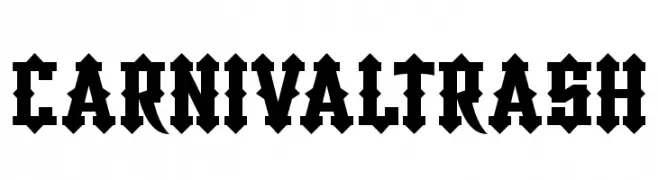
( Fonts by Altsys Metamorphosis )
A bold, angular font with a futuristic and tribal aesthetic.
( Fonts by www.aenigmafonts.com )
A bold, decorative font with spiky serifs and intricate details.
( Fonts by The Scriptorium - Dave Nalle )
A bold, medieval-inspired font with sharp, angular lines and a modern twist.
( Fonts by Levi Halmos )
A bold, angular font with a modern, industrial aesthetic.
( Fonts by The Scriptorium - Dave Nalle )
A bold, decorative font with sharp serifs and a medieval flair.
A bold, edgy font with sharp, angular lines and dynamic flow.
A dynamic, edgy font with sharp, angular strokes and a modern aesthetic.
( Fonts by www.typodermicfonts.com - Ray Larabie )
A jagged, angular font with sharp strokes and dynamic energy.
( Fonts by www.kiwi-media.com )
A bold, gothic-inspired font with sharp serifs and unique letterforms.
( Fonts by Furdzville - Brian Powers )
A whimsical and decorative font with intricate, playful letterforms.
( Fonts by Alan Carr )
A bold, angular font with sharp geometric lines and a dynamic style.
( Fonts by Harold Lohner - www.haroldsfonts.com )
A bold, thorny font with sharp, angular lines and a striking appearance.
( Fonts by or from www.graffitifonts.net )
A decorative, Gothic-inspired font with intricate, angular designs.
A gothic blackletter font with ornate, sharp-edged characters.
( Fonts by Jacob Fisher - www.pizzadude.dk )
A bold, hand-drawn font with dynamic, angular strokes and an expressive style.